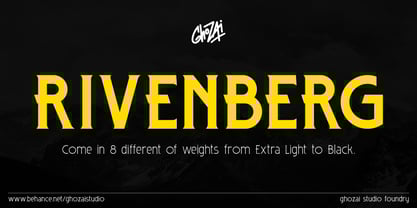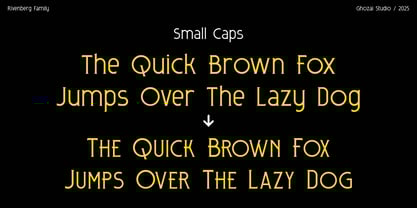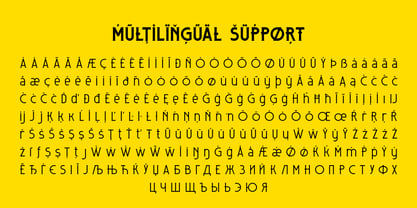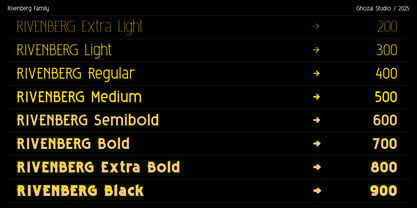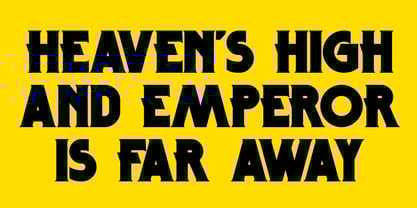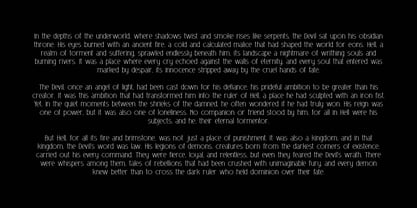
Rivenberg
von Ghozai Studio
Die Schriftfamilie Rivenberg wurde von Manzur Ghozaali entworfen und von Ghozai Studio veröffentlicht. Rivenberg enthält 8 Stile und Familienpaketoptionen.
Rivenberg is a font family featuring 8 weights, from Extra Light to Black, making it perfect for a variety of design needs. With a range of OpenType features and multilingual glyph support, it’s ideal for projects in multiple languages, ensuring global versatility. Whether you’re working on bold headlines, dynamic sports graphics, or clear signage, Rivenberg delivers the impact your designs need. Its clean, modern style and varied weights allow it to seamlessly transition from large, attention-grabbing titles to more subtle, refined text applications. Whether used in print or digital media, Rivenberg provides both legibility and style, offering endless possibilities for your creative projects.
Designer: Manzur Ghozaali
Herausgeber: Ghozai Studio
Foundry: Ghozai Studio
Eigentümer des Designs: Ghozai Studio